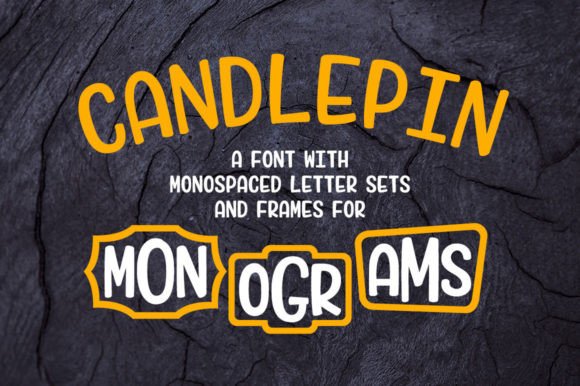
Prepare yourself to embark on a whimsical adventure with Candlepin Monogram Font, a charming decorative font family designed to make your words dance and your designs shine. Say goodbye to stuffy, formal monograms and embrace the lighthearted, playful spirit of Candlepin.
With its two sets of capital letters (uppercase A-Z and lowercase a-z) and two sets of numbers (larger 0-9 and smaller shift + 0-9), Candlepin offers endless possibilities for creating unique and eye-catching monograms. But that's just the beginning!
Unleash your creativity with 20 enchanting frame and graphic options, each mapped to a different punctuation mark on your keyboard. Creating a monogram is a breeze: simply type the punctuation for the desired frame, followed by three letters in lowercase, uppercase, and lowercase. Voila! You have a cool and funky monogram, perfect for personalizing everything from stationery to home décor.
But Candlepin is more than just a monogram font. It also serves as two full usable monospace alphabets, providing a neat and tidy solution for vertical stacking or adding a touch of fun to spreadsheets and word search puzzles.